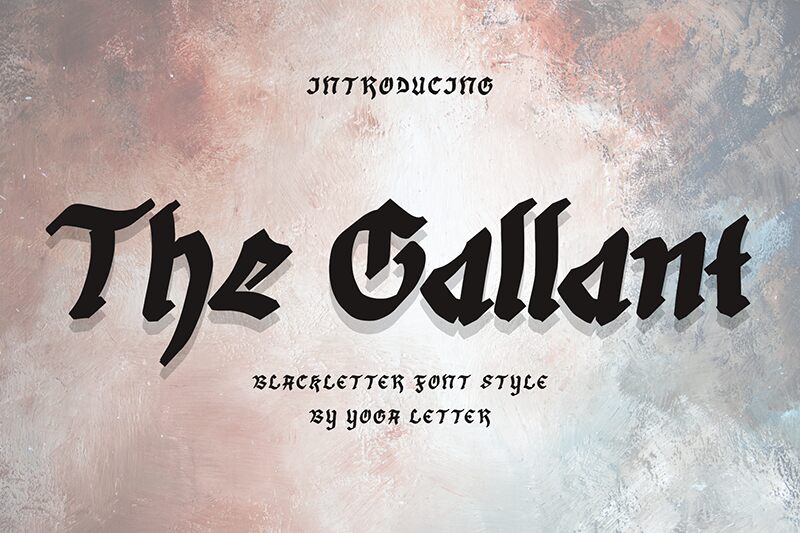
The gallant font: a gothic typeface with a dashing presence. And because dashing gentlemen deserve elegant women, this font is waiting for you to add its personality to your projects. This font is perfect for logos, album titles, movie and book posters or quotes, clothing items, and vintage designs. It is available in OTF format for personal use.